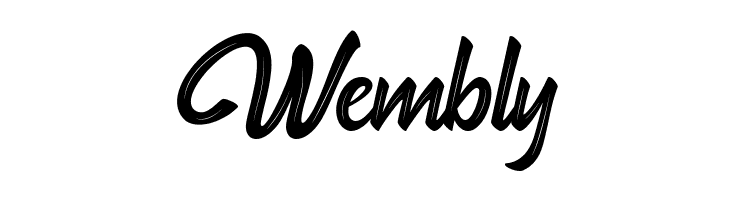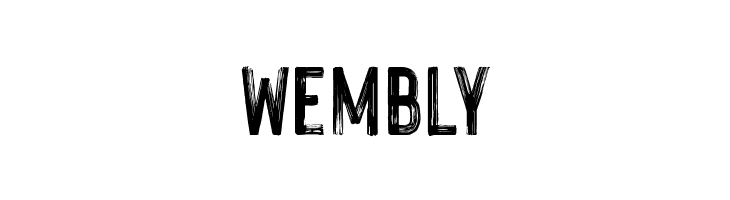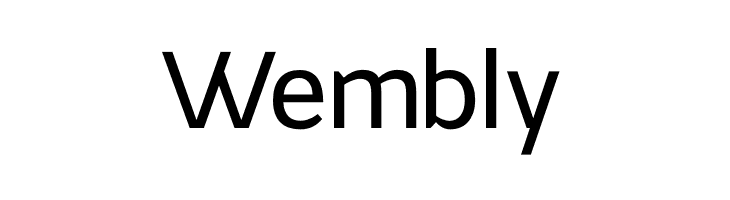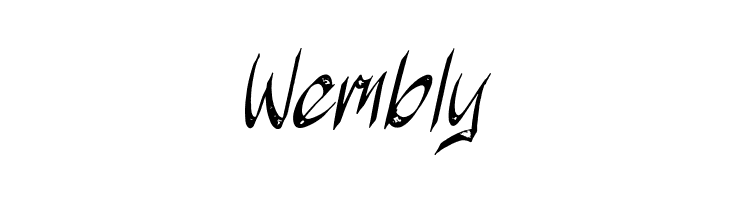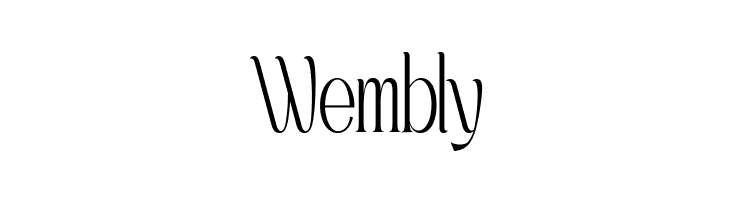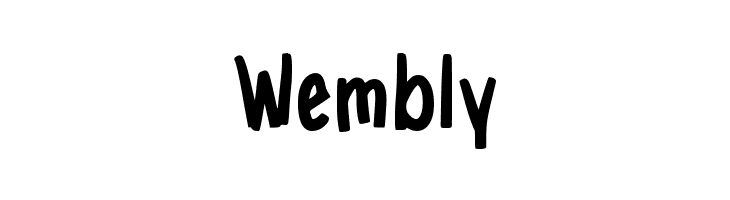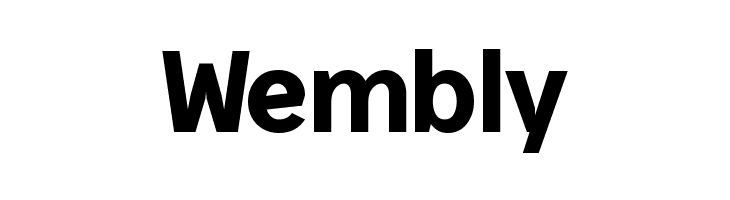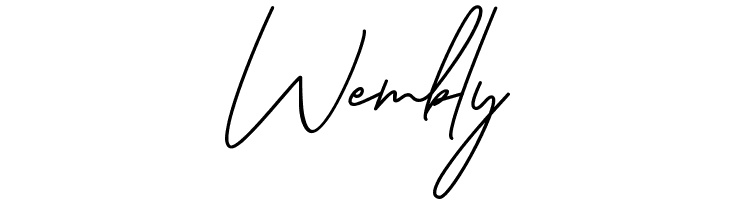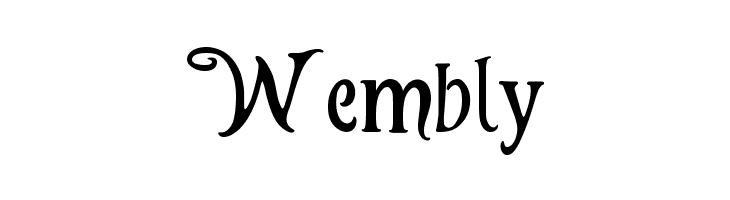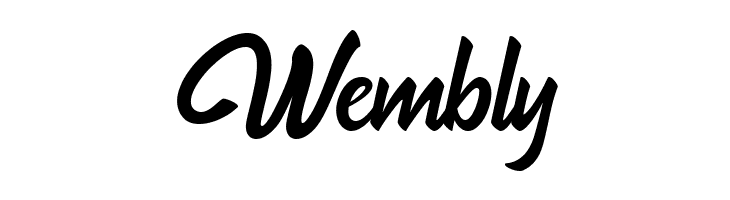
Hackney Block Italic Font
A bold, italicized font with a blocky, modern style.
Hackney Block Outline Font
A bold, blocky outline font with geometric structure and sharp angles.
Hackney Block Outline Italic Font
Bold, outlined, italicized font with a modern, dynamic style.
Hackney Personal Use Only Font
A bold, textured font with a hand-drawn, vintage appearance.
Hacknslash Font
A bold, jagged font with a chaotic, intense design.
Hackwell Font
A dynamic, edgy font with sharp, angular strokes and a distressed texture.
Hackwell Font
A dynamic, edgy font with sharp angles and a distressed texture.
Hacky Light Demo Light Font
A modern, elegant font with tall, slender letterforms and subtle curves.
Haco Font-Black Font
A bold, geometric font with a modern, industrial feel.
Haco Font-Bold Font
A bold, geometric font with a blocky, modern design.
Haco Font-Regular Font
A bold, geometric font with a modern, blocky design.
Hacuia Font
A modern, clean sans-serif font with uniform stroke width and minimalistic design.
Hadas Font
A whimsical and decorative font with playful curves and unique serifs.
HadasahLight Font
A clean, modern font with uniform structure and geometric style.
HadasahShamen Font
A bold, geometric font with a modern, digital appearance.
hades Font
A bold, futuristic font with sharp, angular edges and geometric shapes.
Hadeska Personal Use Font
A playful, casual handwritten font with smooth, flowing lines and consistent stroke width.
hadfield Font
A bold, flowing script font with elegant curves and dynamic style.
hadfield strip Font
A bold, energetic script font with flowing, connected strokes.
Hadiah Font
A playful, hand-drawn font with a bold and whimsical style.
Hadinesta Blarfhine DEMO VERSIO Font